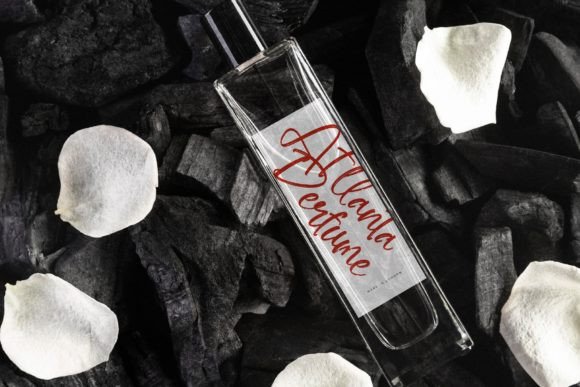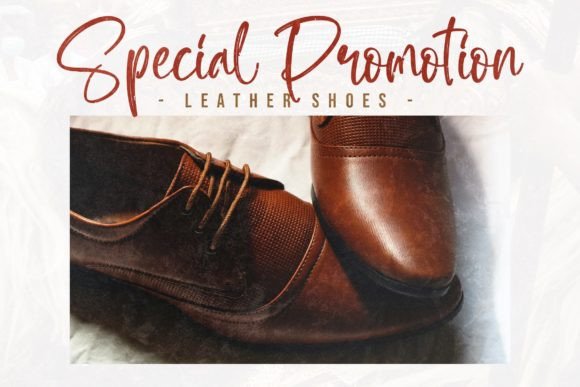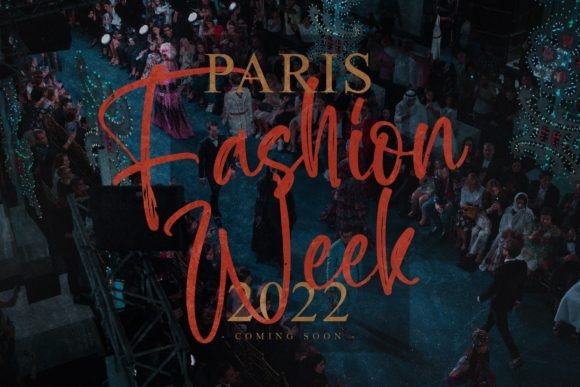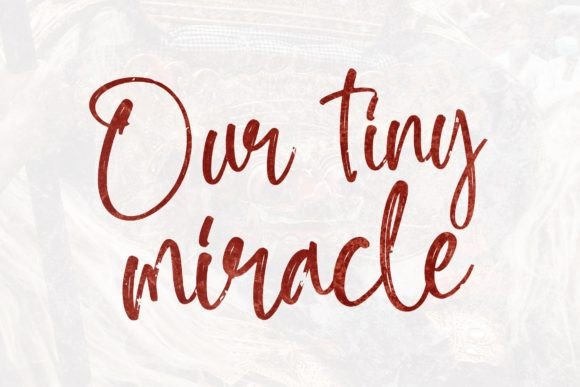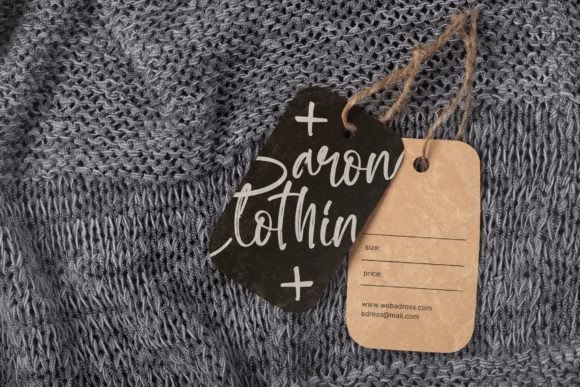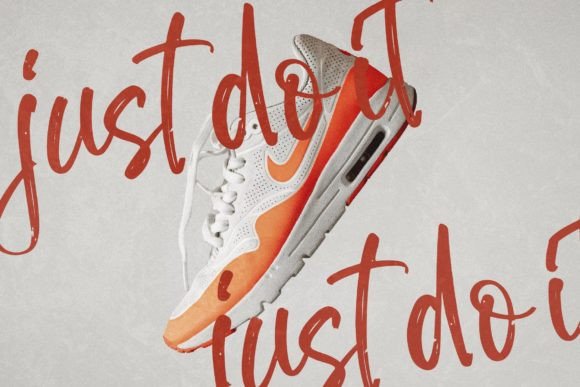
The Perfect Signature: Introducing the Barong Signature Font
Have you ever stared at a blank piece of paper, pencil in hand, trying to come up with the perfect signature for your brand or project? It’s a moment of pure creative struggle, but also a moment of pure potential. This is where the magic of typography comes in, and I’m excited to share with you a font that’s sure to bring a touch of whimsy and elegance to your designs.
Meet the Barong Signature Font, a beautiful cursive handwritten script font that’s perfect for adding a romantic and joyful touch to your projects. Whether you’re designing a wedding invitation, a fashion lookbook, or a marketing campaign, this font is sure to make your work stand out. With its PUA encoded glyphs and ligatures, you’ll have access to a wide range of customization options, making it a valuable addition to any designer’s toolkit.
Key Features of Barong Signature Font
- Font Family: Barong Signature Font is a unique, hand-drawn script font designed to add a touch of elegance and sophistication to any design project.
- Character Count: The font contains over 200 glyphs, including uppercase and lowercase letters, numbers, punctuation marks, and special characters.
- Unique Characteristics: The Barong Signature Font features a distinctive, flowing script style with subtle flair and connection between letters, making it perfect for adding a personal touch to wedding invitations, event branding, and other creative projects.
Review of Barong Signature Font
As a designer, I’ve had the chance to work with Barong Signature Font, and I’m excited to share my honest thoughts on it.
Here are the things that work well: ✨ The font’s elegant and sophisticated design makes it perfect for creating high-end brand identities, particularly for fashion, luxury, and lifestyle brands. ✨ The font’s versatility allows it to work well in both digital and print formats, making it a great choice for designers who need to create consistent branding across multiple platforms. ✨ The font’s range of weights and styles offers plenty of options for designers to customize and create unique typography.
Limits and Areas for Improvement ⚠️
While Barong Signature Font is a solid choice, there are a few limitations to consider: ⚠️ The font’s lack of a clear, bold, or condensed version can make it challenging to use in situations where a more dramatic or compact font is needed. ⚠️ Some users may find the font’s elegance and sophistication to be too subtle or understated, making it less effective for brands that want to make a bold statement.
Overall, I think Barong Signature Font is a great choice for designers who need a high-end, versatile font for their projects. While it may not be perfect for every situation, it’s a solid addition to any designer’s toolkit.
- Elegant and sophisticated design
- Versatile and works well in both digital and print formats
- Range of weights and styles for customization
- Lack of clear, bold, or condensed version
- May be too subtle or understated for some brands
Tips for Getting the Most Out of the Barong Signature Font
For best results, use the Barong Signature Font in conjunction with bold or italic styles to add emphasis. Experiment with different font sizes and colors to create visual hierarchy and contrast.
The Barong Signature Font is ideal for creative projects such as branding, packaging design, and advertising. It’s also suitable for use in web design, print materials, and digital media.